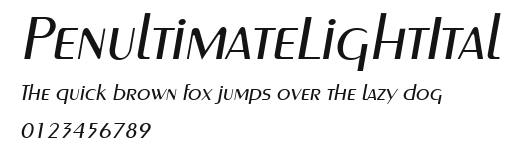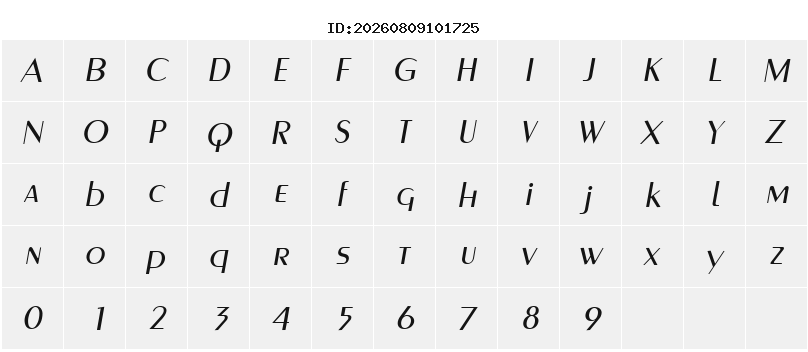
PenultimateLightItal Preview
• Font Name: PenultimateLightItal
• Font ID: Altsys Fontographer 3.5 PenultimateLightItal Regular
• Full Font Name: PenultimateLightItal Regular
• Version: Altsys Fontographer 3.5 2/9/93
• PostScript Name: PenultimateLightItal
• Character Count: 185
About PenultimateLightItal.ttf
PenultimateLightItal.ttf is a modern, elegant sans-serif font designed for ultimate readability and visual harmony. Perfect for branding, headlines, web design, and print materials.